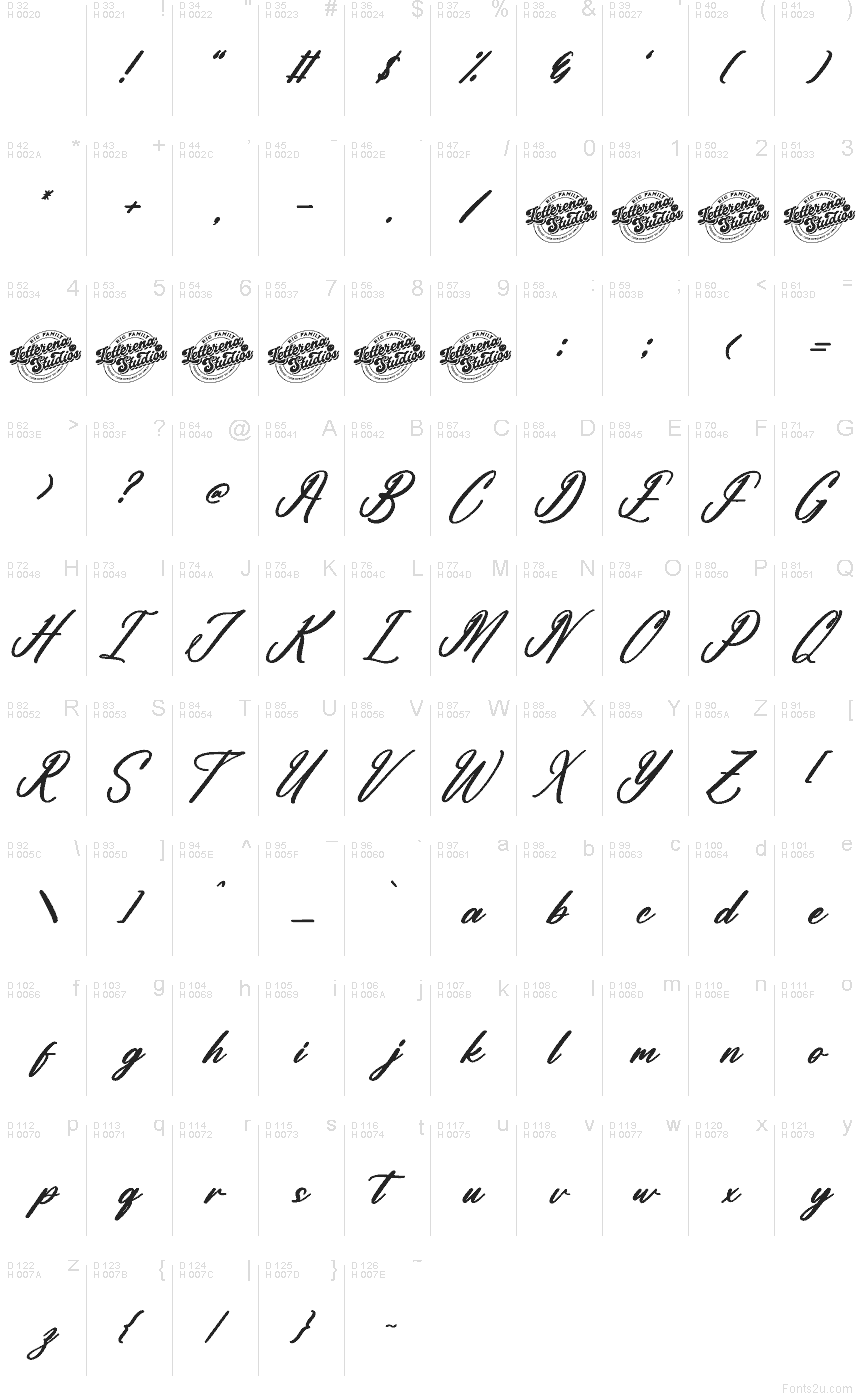
Antholia Riechgan DEMO VERSION Italic
Antholia Riechgan Italic font by Letterena Studios is a free handwritten script typeface with the elegance of careful pen flourishes and the ease of a ready-to-use digital font. Its looping strokes feel fluid and slightly textured, like wet ink gliding over smooth paper, giving every word a romantic, personal touch. The Antholia Riechgan family’s italic style leans gracefully forward, adding momentum and warmth without looking messy or rushed.
Using Antholia Riechgan Italic, you can give wedding invitations, save-the-dates, event menus, beauty branding, boutique logos, and Instagram quote graphics a soft, handwritten glow. This free font shines on larger headings where its sweeping curves can breathe, while a clean sans serif in small caps underneath makes a simple, timeless pairing.